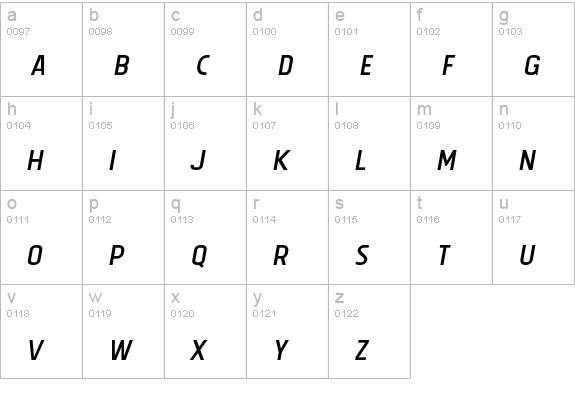
Tolyer Book no.1 Oblique Font Details
Tolyer Book no.1 Oblique is a comfortable, highly readable, italic variant in the Tolyer typeface family \xE2\x80\x94 well suited to long-form body text, articles, and editorial content.
Introducing Tolyer Book no.1 Oblique font, a sophisticated and elegant typeface that exudes a sense of modernity and style. Its unique slanted design adds a touch of dynamism to any project, making it perfect for creating eye-catching headlines and titles. The sleek curves and sharp angles of this font make it versatile for both print and digital designs, ensuring your work stands out from the crowd. Best of all, Tolyer Book no.1 Oblique font is available for free download at FontsMarket.com. Whether you are working on a personal project or a professional design, this font is a valuable addition to your typographic toolbox. Don't miss out on the opportunity to elevate your designs with this stunning typeface. Download Tolyer Book no.1 Oblique font today and unleash your creativity!